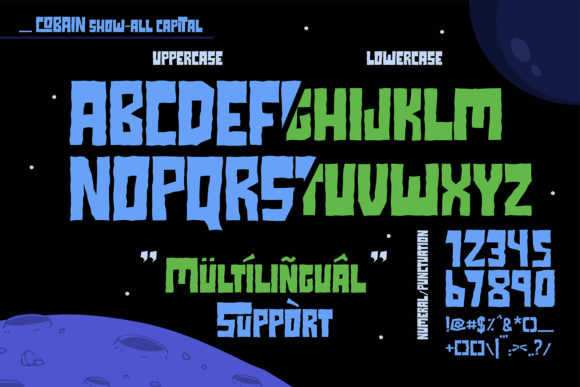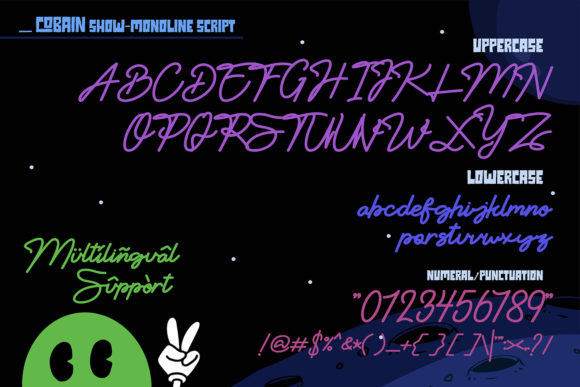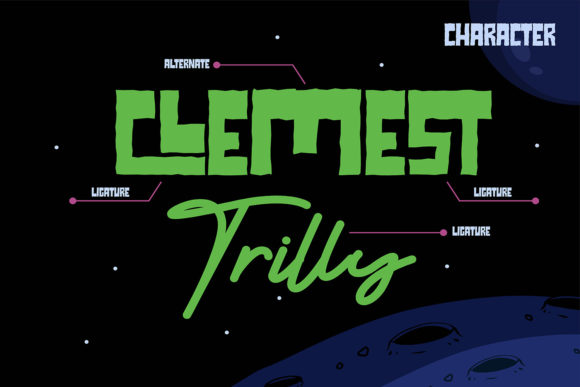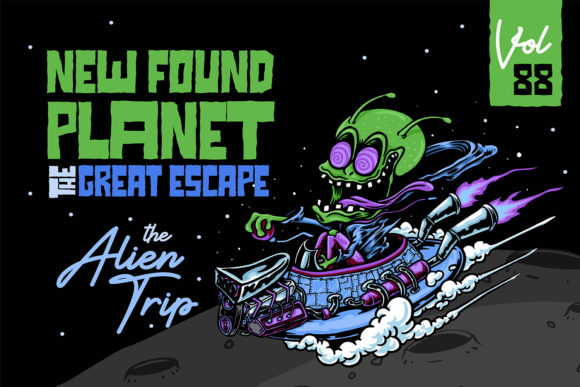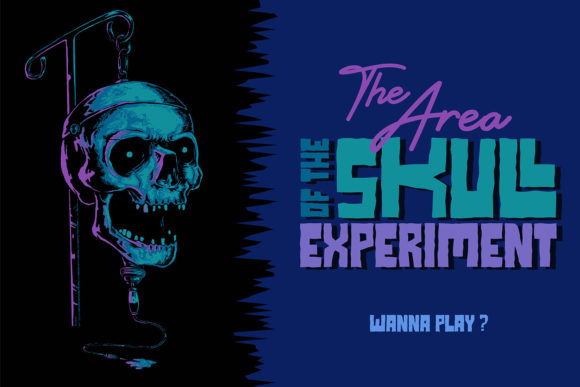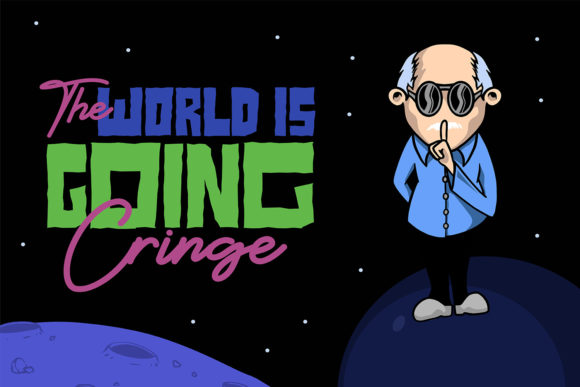
Cobain Show Font: Elevate Your Designs with this Versatile Street-Style Duo
Are you on the hunt for a font that can add a touch of edginess to your designs? Look no further than the Cobain Show Font, a dynamic street-style duo font that is perfect for marketing materials, games, street-wear designs, and other modern crafty projects. This font combination is made up of a bold, all-capital display font and a sleek monoline script, which can be paired together to create a wide range of design styles, from vintage to cyber-punk.
What Makes Cobain Show Font So Special?
The Cobain Show Font is a highly versatile font duo that offers a unique combination of style and functionality. Here are just a few reasons why designers and crafters are raving about this font:
- Dual Font Style: The Cobain Show Font comes with two font styles: a bold, all-capital display font and a sleek monoline script. This allows you to mix and match the fonts to create a wide range of design styles.
- Vintage and Cyber-Punk Themes: The bold display font is perfect for creating eye-catching headlines and titles, while the monoline script adds a touch of elegance and sophistication. Combine the two fonts to create vintage-style designs or cyber-punk themes that are sure to turn heads.
How to Use Cobain Show Font in Your Designs
The Cobain Show Font is a versatile font duo that can be used in a wide range of design projects. Here are a few ideas to get you started:
- Marketing Materials: Use the bold display font to create eye-catching headlines and titles for marketing materials such as brochures, flyers, and posters.
- Street-Wear Designs: Pair the bold display font with the monoline script to create unique and stylish designs for street-wear brands.
- Games: The Cobain Show Font is perfect for game designers who want to add a touch of edginess to their games.
- Modern Crafty Projects: Use the font to add a touch of style to modern crafty projects such as handmade cards, scrapbooking, and DIY crafts.
Tips and Tricks for Getting the Most Out of Cobain Show Font
Here are a few tips and tricks for getting the most out of the Cobain Show Font:
- Experiment with Different Font Combinations: Don’t be afraid to experiment with different font combinations to find the perfect look for your design.
- Play with Font Sizes: Play with different font sizes to create visual interest and hierarchy in your designs.
| Font Name | Cobain Show Font |
| Author | SweetSalty |
The Cobain Show Font is a versatile and stylish font duo that is perfect for designers and crafters who want to add a touch of edginess to their designs. With its bold display font and sleek monoline script, this font combination is perfect for a wide range of design projects, from marketing materials to street-wear designs. Whether you’re a seasoned designer or just starting out, the Cobain Show Font is a great addition to your font library.